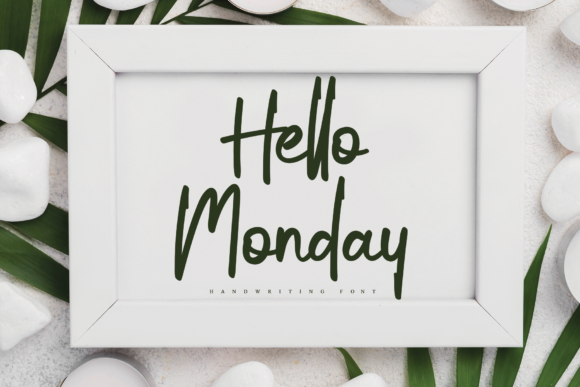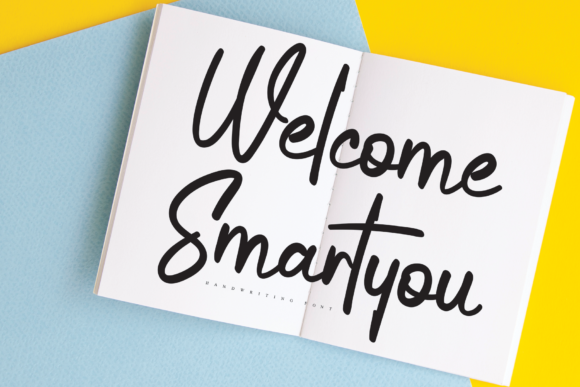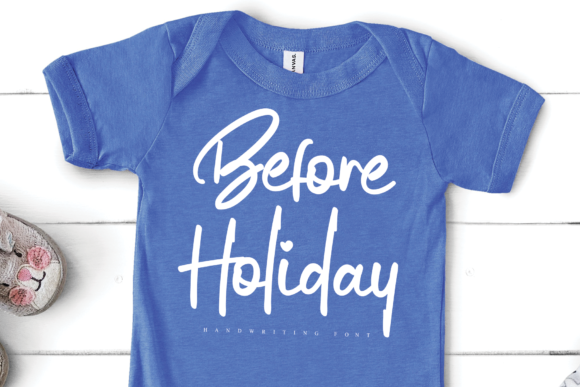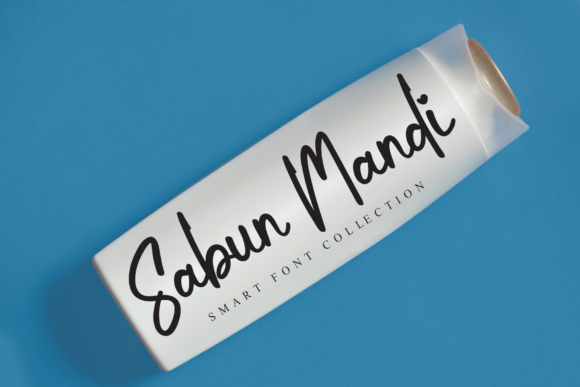
Unlocking the Magic of Design with Brilliant Creative Font
As a designer, there’s no feeling quite like the thrill of bringing a concept to life. It’s the moment when your imagination takes shape, and your vision becomes a tangible reality. You’re in the zone, and nothing else matters – not even the clock ticking away. You’re driven by a single-minded passion to create something truly remarkable.
That’s where Brilliant Creative Font comes in – a stunning light handwritten font that adds a touch of luxury to any design project. Whether you’re crafting a logo, a brochure, or a website, this font is sure to leave a lasting impression. Its unique feel and stunning impact make it a valuable asset for designers looking to elevate their work to the next level.
Brilliant Creative Font Key Features
- Unique Characteristics: Hand-drawn design elements, intricate details, and a touch of whimsy, making it perfect for creative and artistic projects
Brilliant Creative Font Review
Overall, I’m quite impressed with Brilliant Creative Font. It’s a great choice for designers looking for a unique and eye-catching typeface.
What works well: ✨ The font’s playful and modern design makes it perfect for creative projects, such as magazines, advertisements, and websites. The bold and italic weights are particularly useful for adding emphasis and visual interest. The font also supports a wide range of languages, making it a great choice for global projects.
What doesn’t work well: ⚠️ While the font is great for creative projects, it may not be suitable for formal or professional applications, such as business reports or academic papers. Additionally, some users may find the font’s irregularities and quirks distracting, particularly when used in large blocks of text.
Here are some specific features that I like and dislike:
- Playful and modern design
- Bold and italic weights
- Wide language support
- Irregularities and quirks may be distracting
- May not be suitable for formal or professional applications
Overall, I think Brilliant Creative Font is a great choice for designers who want to add some visual interest and personality to their projects. Just be aware of its limitations and use it accordingly.
Brilliant Creative Font is perfect for:
- Designing eye-catching headlines